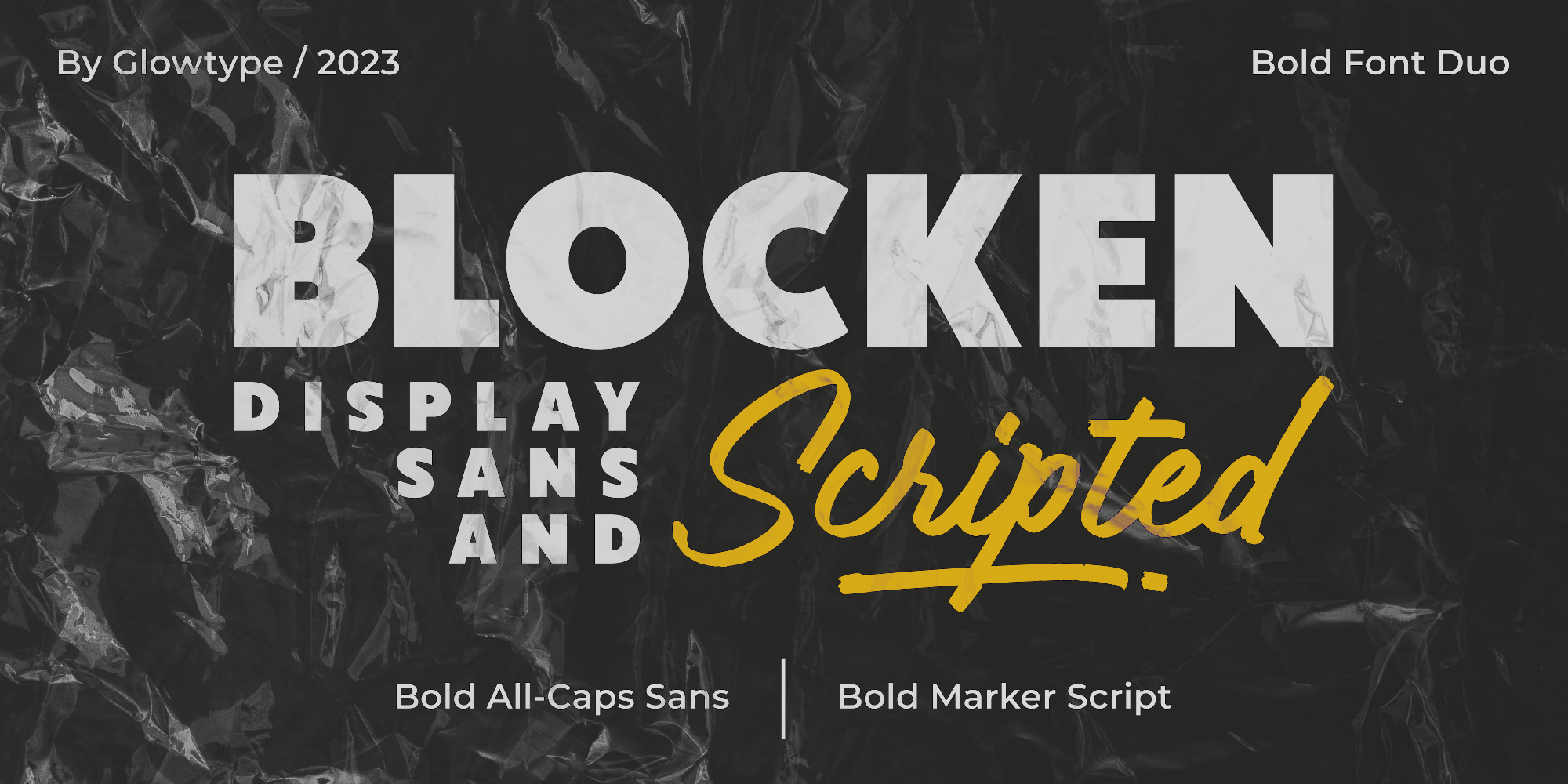
If you're looking for a bold, geometric typeface with a strong, modern appeal, Blocken Font Free Download is the perfect choice for your creative projects. This powerful display font features solid, blocky letterforms with clean lines and sharp edges, making it ideal for headlines, posters, logos, packaging, branding, sports graphics, and promotional materials that need to make a bold statement. Its sturdy design ensures high impact and excellent visibility in both print and digital formats.
Blocken Font offers great readability while maintaining its strong personality. It includes multilingual support and a variety of glyphs, giving designers the flexibility to create standout typography across different applications. Whether you're crafting an eye-catching event poster or designing a bold logo, this font delivers confidence, clarity, and style.